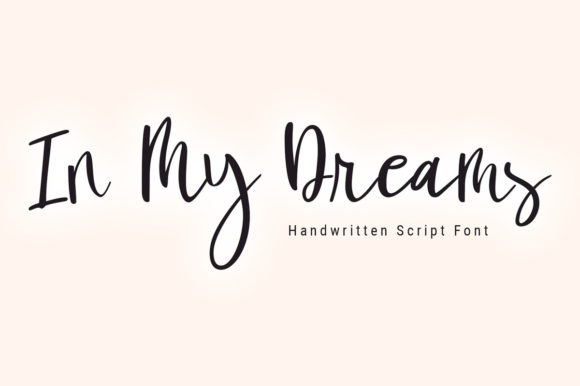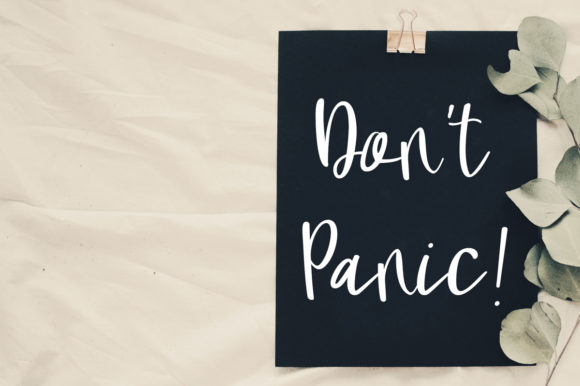
About In My Dreams Font
In My Dreams is a chic, whimsical script font that emanates confidence and versatility. Its stylish alternates and ligatures make this font the perfect match for any project.